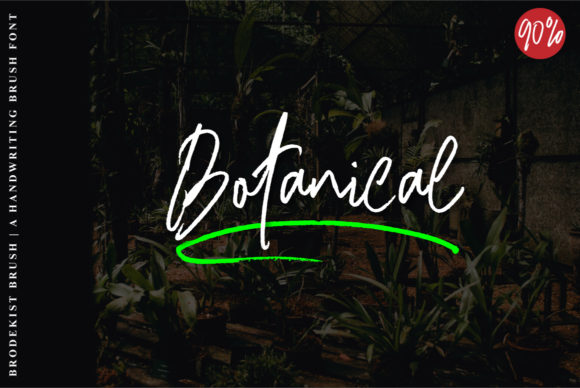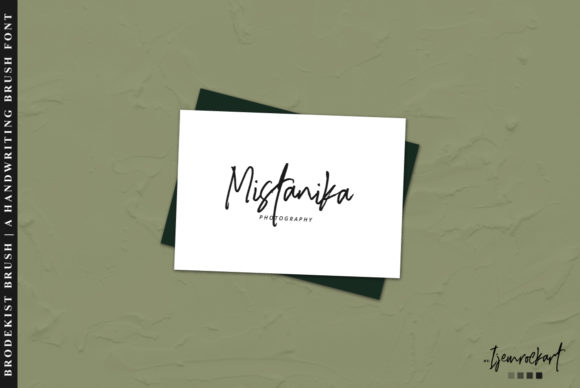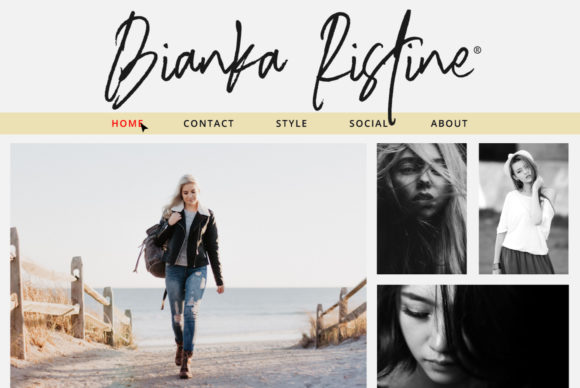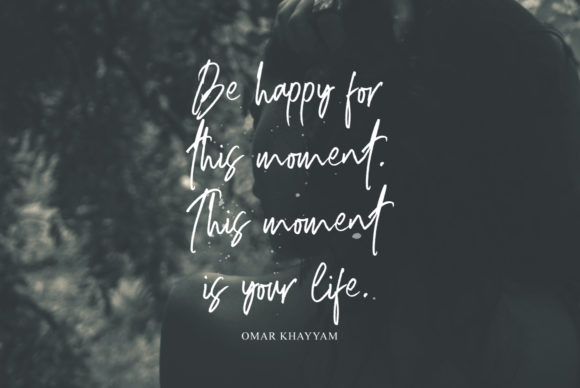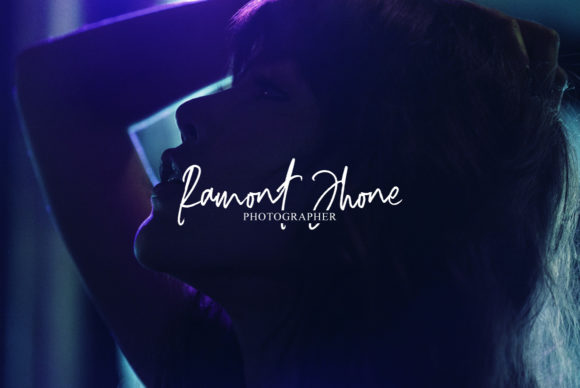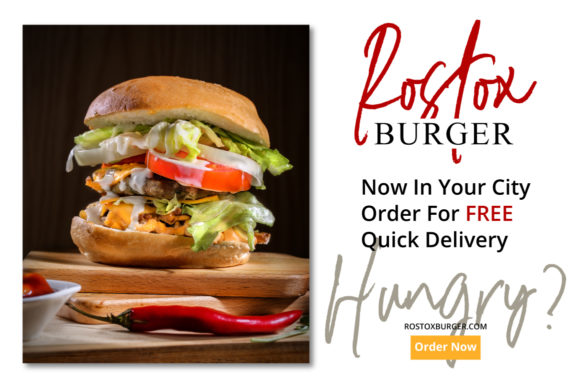
Brodekist Font
About Brodekist Font
Brodekist is an elegant, yet bold handwritten font with an undeniably urban feel. Get inspired by its lovely characters.